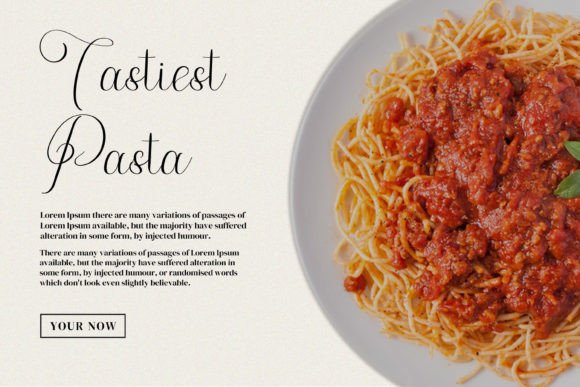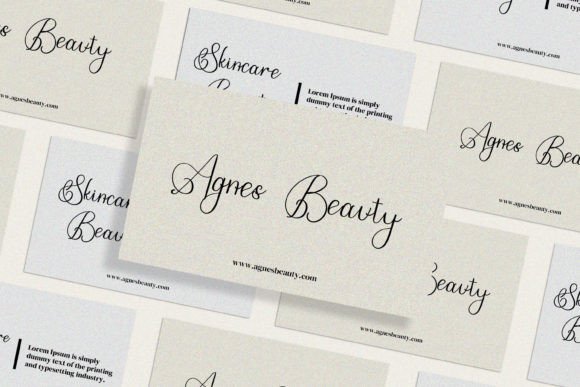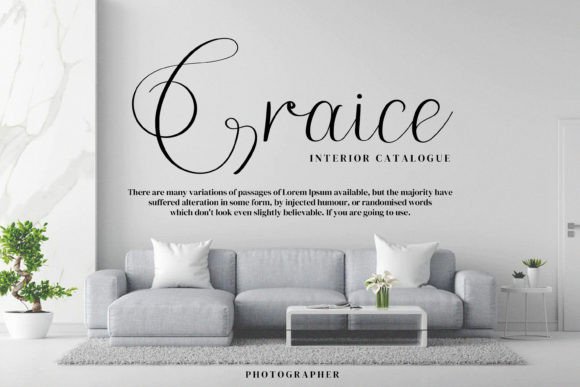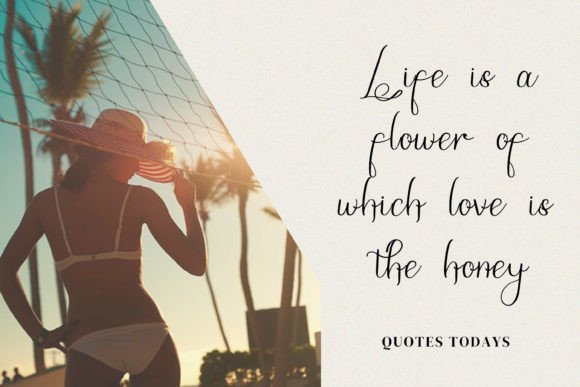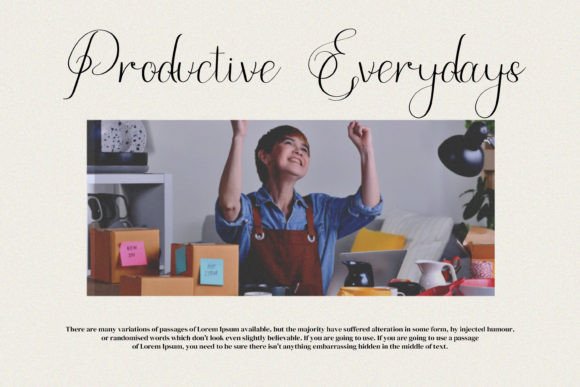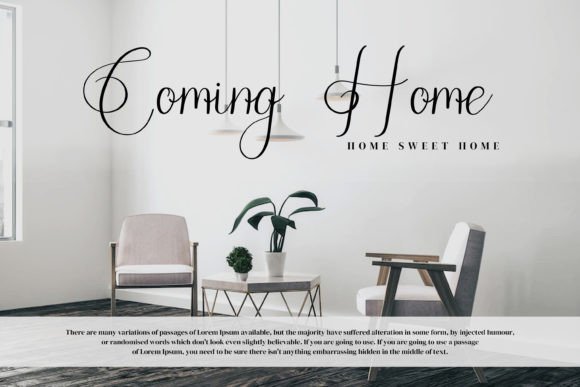
Introduction to Lantby Font
As you sit at your desk, staring at a blank canvas, you know the struggle is real. You’ve got a creative project on your hands, but the words just won’t flow. The cursor blinks, taunting you, as you search for the perfect font to bring your vision to life. And then, like a breath of fresh air, you stumble upon it – the Lantby Font. With its elegant script and flowing lines, this beautiful font is the perfect addition to any design project.
As a designer, you know how valuable it is to have access to high-quality design resources like the Lantby Font. Not only does it add a touch of sophistication and class to your work, but it also gives you the freedom to express yourself in a way that’s truly unique. And with its PUA encoded features, you can access all glyphs and swashes effortlessly, making it a breeze to customize your design.
Honest Review: Lantby Font
I recently stumbled upon the Lantby Font while searching for a free download to enhance my creative project. The font’s high quality and versatility caught my attention, and I’m excited to share my honest review with you.
- ✨ Unique and modern design: The Lantby Font features a unique blend of modern and vintage elements, making it perfect for a wide range of creative projects.
- ✨ High quality: The font is available in high resolution, ensuring that it looks great on various devices and screens.
- ✨ Transparent background: The font’s transparent background makes it easy to use with images or videos, giving you more creative freedom.
- ⚠️ Limited font styles: While the Lantby Font is available in multiple weights, the selection is somewhat limited compared to other fonts in its category.
- ⚠️ No bold italic style: Unfortunately, the font does not offer a bold italic style, which might be a drawback for some designers.
Overall, I’m impressed with the Lantby Font’s potential as a design resource. Its unique design, high quality, and transparent background make it a great choice for creative projects. While it has some limitations, I believe it’s a valuable addition to any designer’s toolkit.
Lantby Font is perfect for a variety of creative projects, including logo designs, business cards, and social media graphics. Its high-quality design and transparent background make it an ideal choice for any project that requires a unique and visually appealing font.